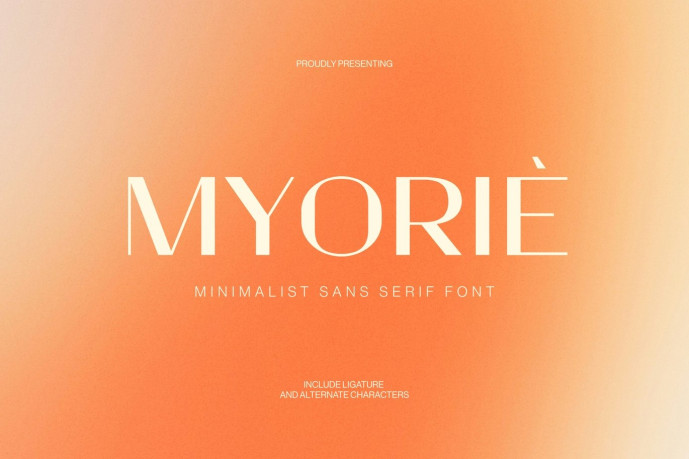
Myorie Font
Myorie Font a minimalist sans-serif display typeface crafted for aesthetics. Balancing a striking contrast between thick and thin strokes and geometric proportions, Myorie brings an immediate sense of understated luxury, editorial prestige, and aesthetic appeal to any creative project.Whether it’s creating a boutique brand identity, designing an elegant luxury brand identity, a logo, editorial layouts, or product packaging, Myorie offers the perfect blend of structural minimalism and artistic flair.